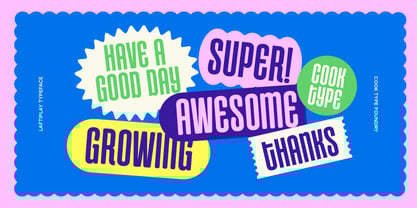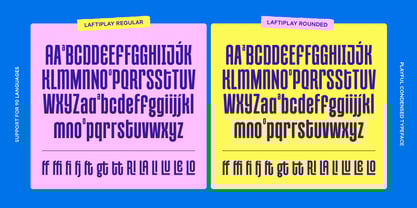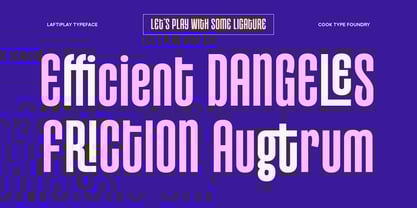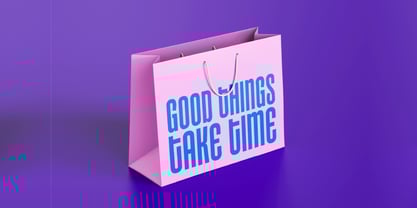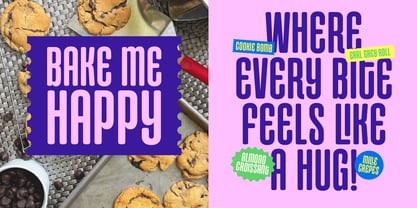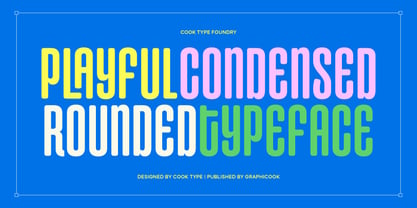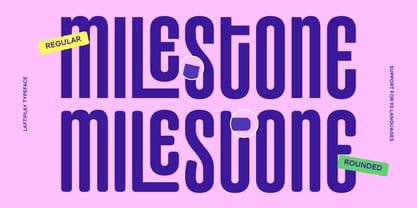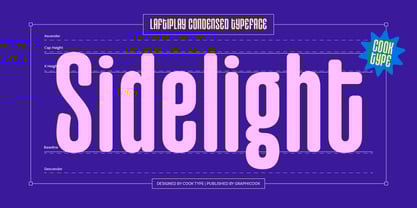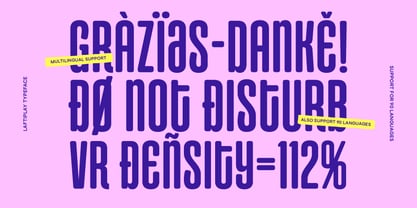
Cook Laftiplay
by Graphicook Studio
The Cook Laftiplay Font Family was designed by Gumilar Febriansyah and published by Graphicook Studio. Cook Laftiplay contains 2 styles and family package options.
Laftiplay comes in two styles: Regular and Rounded. The Regular version offers a sleek, modern look with bold confidence, while the Rounded version brings a softer, friendlier tone. Ideal for branding, editorial, or UI design that needs a balance of professionalism and approachability. It is perfect for headlines, logotypes, magazines, packaging, quotes, movies, games, cover albums, book covers, and flyers.